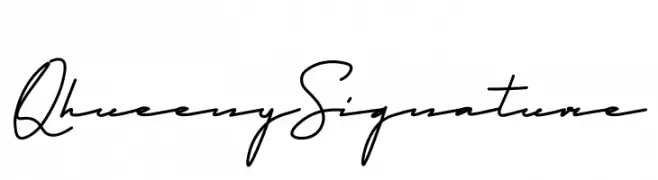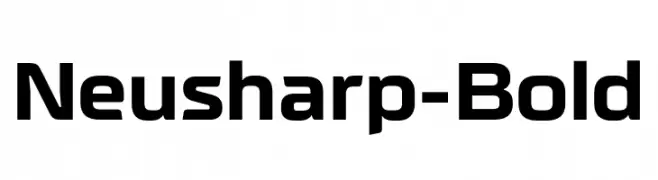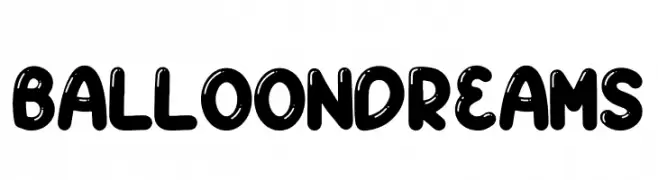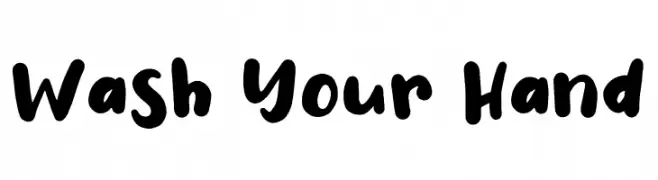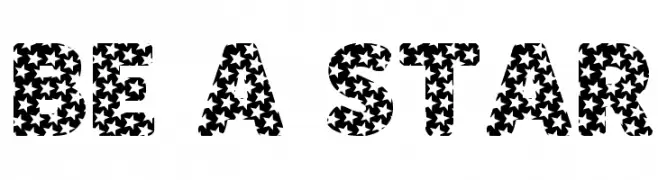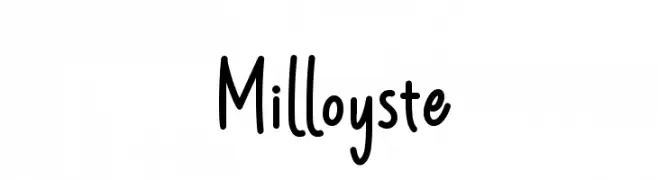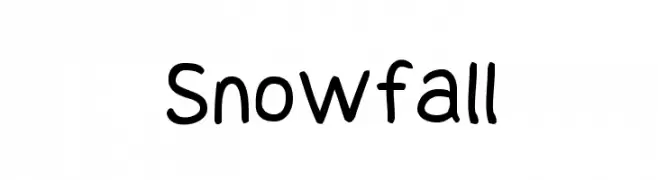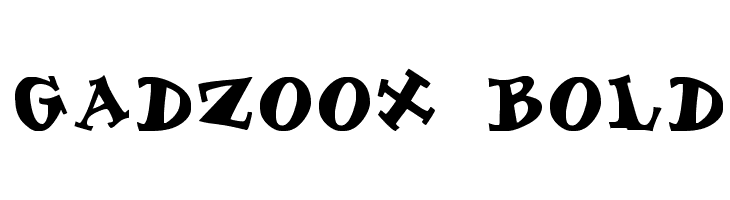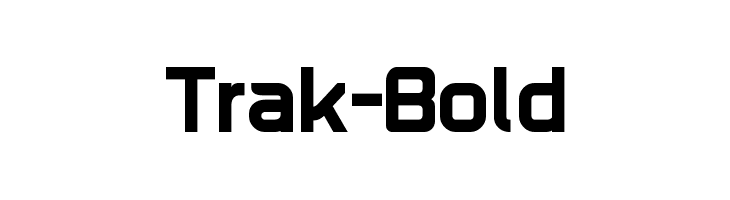
A sophisticated, elegant handwritten font with fluid, connected letterforms.
A bold, modern font with geometric shapes and sharp edges.
A playful, balloon-like font with rounded, glossy characters.
A playful, bold font with rounded, bubble-like characters.
A bold, playful handwritten font with rounded strokes and a casual feel.
A modern, geometric sans-serif font with clean lines and balanced proportions.
A bold, star-patterned decorative font ideal for playful designs.
A playful, handwritten font with smooth, rounded edges and a casual flow.
A playful, rounded handwritten font with a casual and friendly style.
A bold, dynamic script font with fluid, connected strokes.